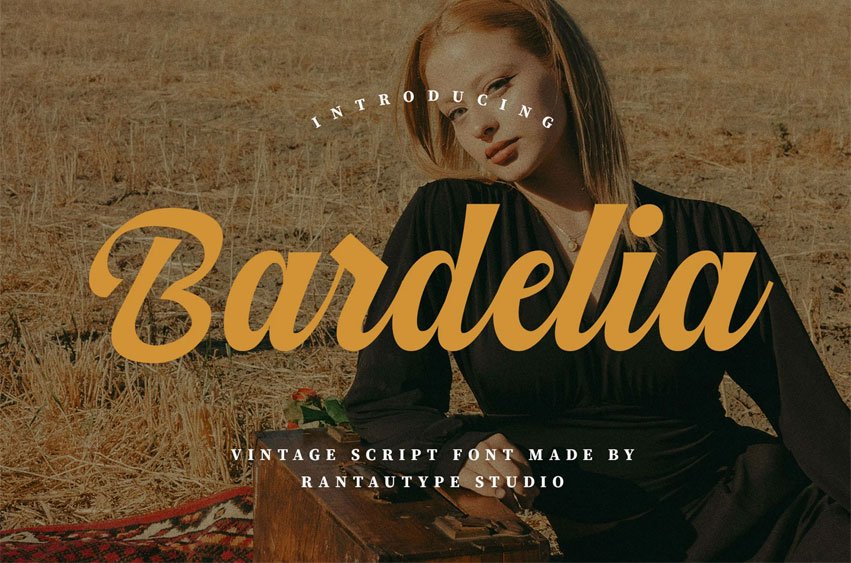
Bardelia Font is a vintage script font created by Rantautype Studio, featuring a nostalgic aesthetic. This font has a bold contrast that enhances its vintage appeal. Bardelia is a perfect choice for various creative projects, including modern lifestyle designs such as logotypes, titles, covers, branding, invitations, wedding designs, magazine displays, social media posts, advertisements, printed quotes, product packaging, corporate branding, product designs, labels, photography, watermarks, and special events.
It adds a retro touch to any project.